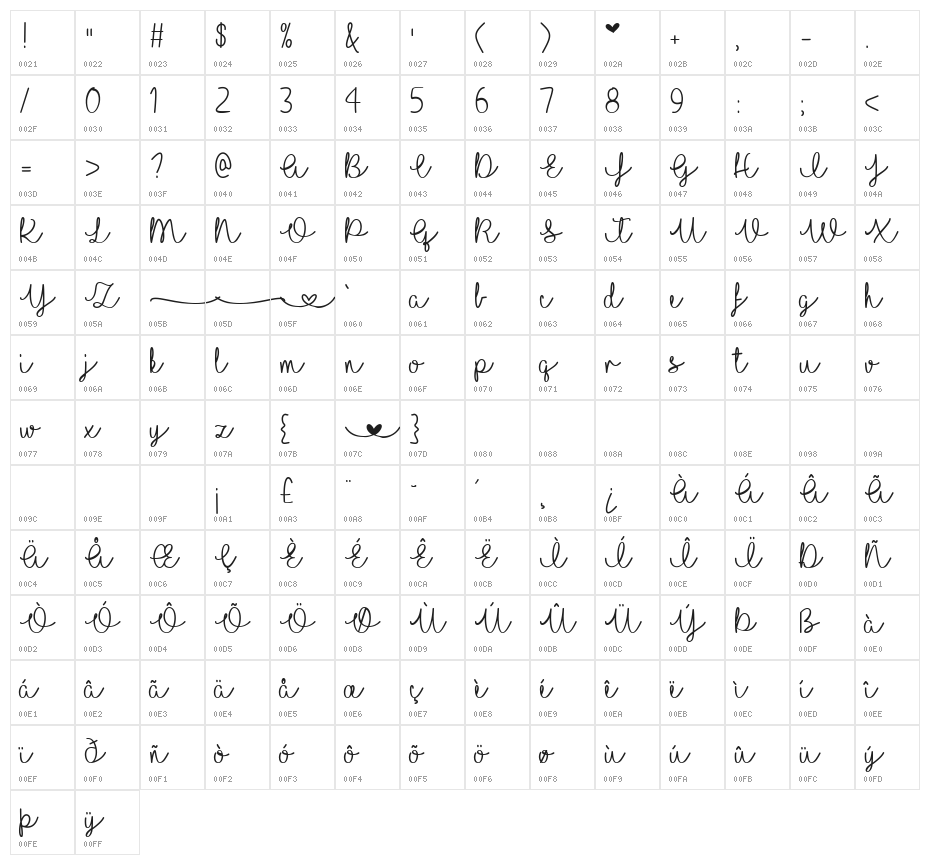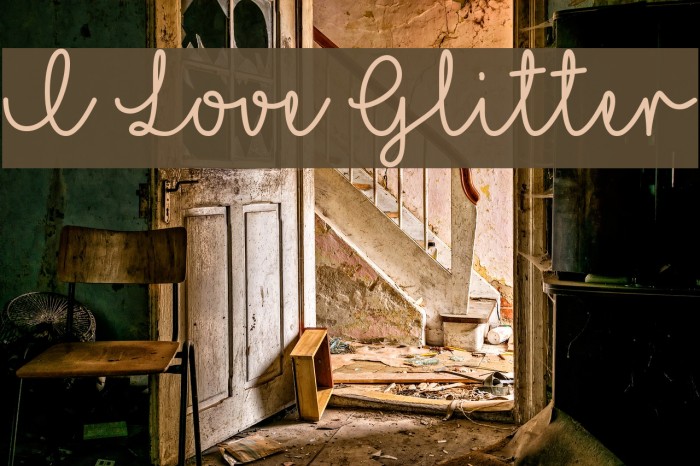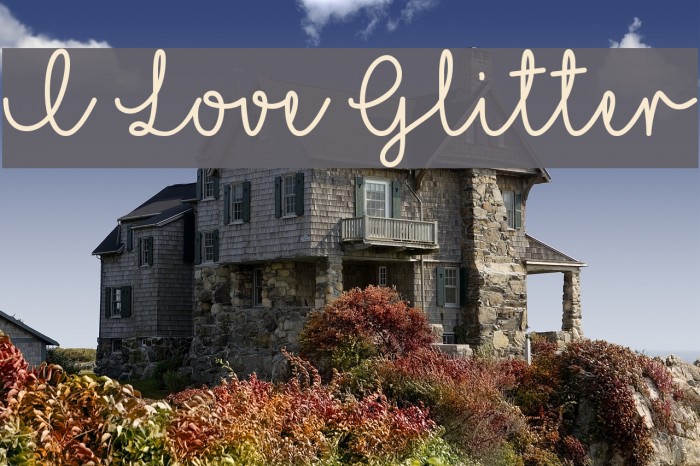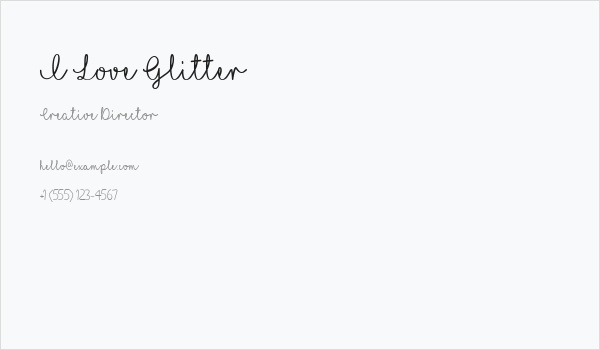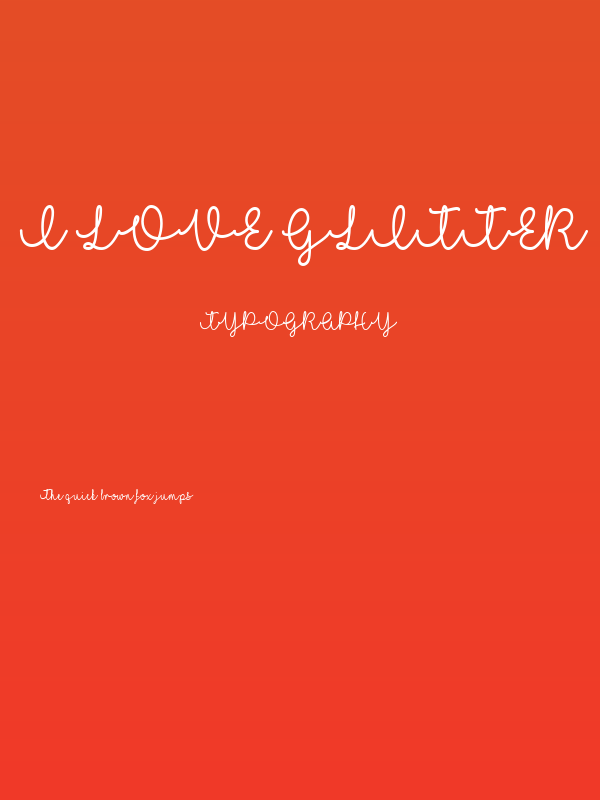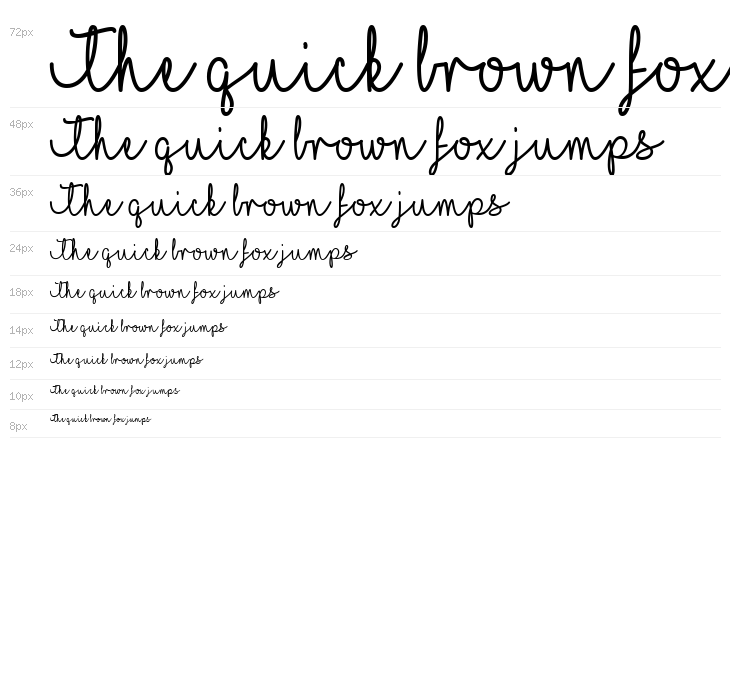
I Love Glitter Font
I Love Glitter Description
This font exudes a playful and whimsical charm, characterized by its flowing, cursive script style. The letters are interconnected, creating a seamless and elegant look that mimics natural handwriting. The uppercase letters maintain a consistent height, while the lowercase letters have a slightly larger x-height, enhancing readability. The numbers and special characters are crafted with the same fluidity, ensuring a cohesive appearance across all glyphs. The strokes are smooth and rounded, adding to the font's friendly and approachable feel. Ideal for projects that require a personal touch, this font is perfect for invitations, greeting cards, and other creative designs.
| Proposed Projects | Ideal for wedding invitations, greeting cards, personal branding, and creative design projects. |